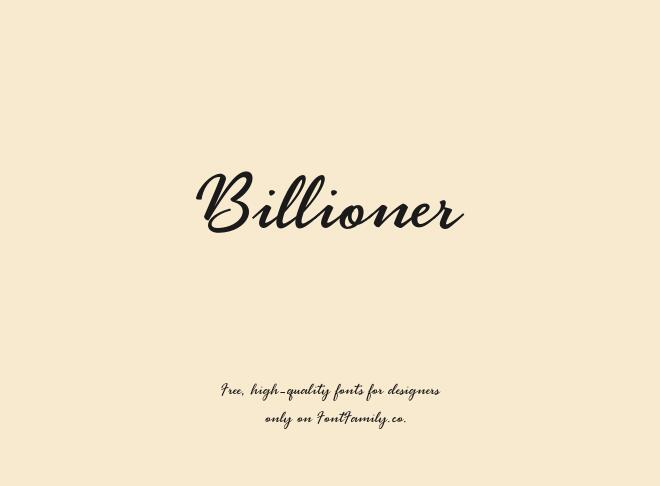
Billioner Font
Billioner Font, designed by Type Factory, is a modern and elegant typeface with a unique charm. Released in 2020, it captures the essence of sophistication and refinement. Its sleek lines and curves make it an excellent choice for high-end branding, logos, and marketing materials. It stands out from other fonts due to its unique blend of modern style and elegance, making it versatile enough for a variety of design projects. With its clean, easy-to-read style, Billioner Font is perfect for designers who want to give their work a touch of luxury and sophistication. Being free for personal use, it's a great starting point for budding designers or professionals looking to expand their font collection.